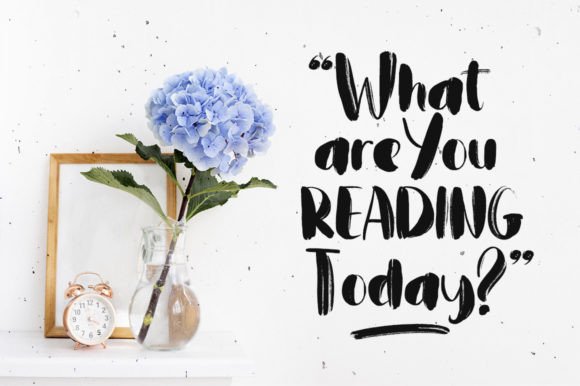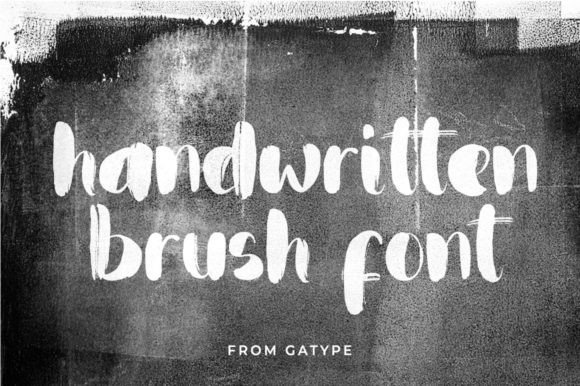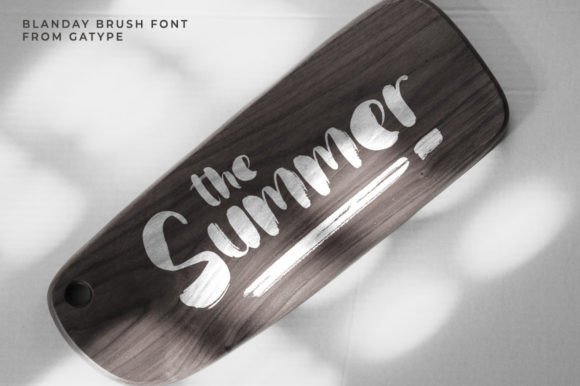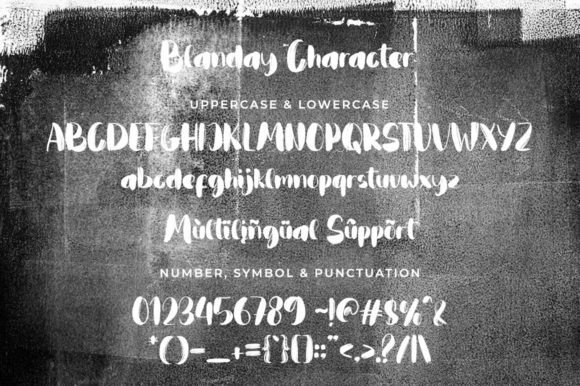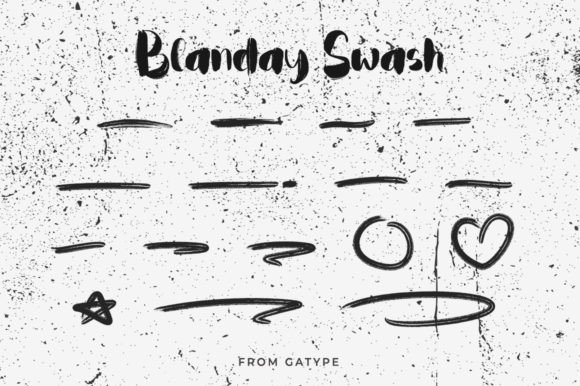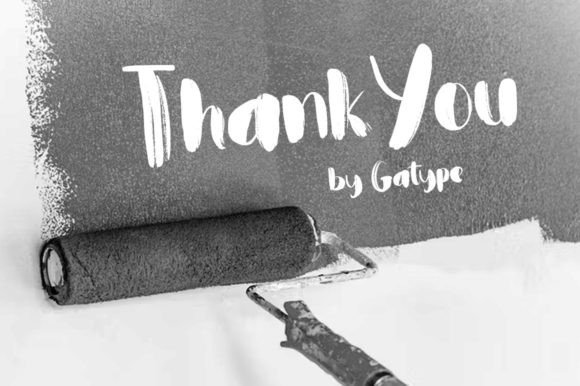
Introduction to Blanday Font Font
Fonts play a crucial role in design, and the Blanday Font font is a typeface that brings both character and versatility to any project. Whether you’re working on a branding project, a website, or a print design, the Blanday Font font offers a unique style that can elevate your work.
Blanday is a really cool handcrafted brush font deliberately created with a natural texture finish, it is perfect for invitations, brand projects, logos, greeting cards, news, web, product packaging, posters, blogs, everything including personal charm, etc.
Blanday is a really cool handcrafted brush font deliberately created with a natural texture finish, it is perfect for invitations, brand projects, logos, greeting cards, news, web, product packaging,
Key Features of Blanday Font Font
Why Choose Blanday Font Font?
The Blanday Font font is more than just a typeface – it’s a design tool that helps you communicate your message with style and clarity. Its unique character set and versatile design make it suitable for a wide range of applications, from elegant invitations to bold headlines.
With its carefully crafted letterforms and balanced proportions, the Blanday Font font ensures readability and visual appeal across all mediums.
What makes Blanday Font font special?
The Blanday Font font stands out with its unique design, exceptional readability, and versatility across various design applications.